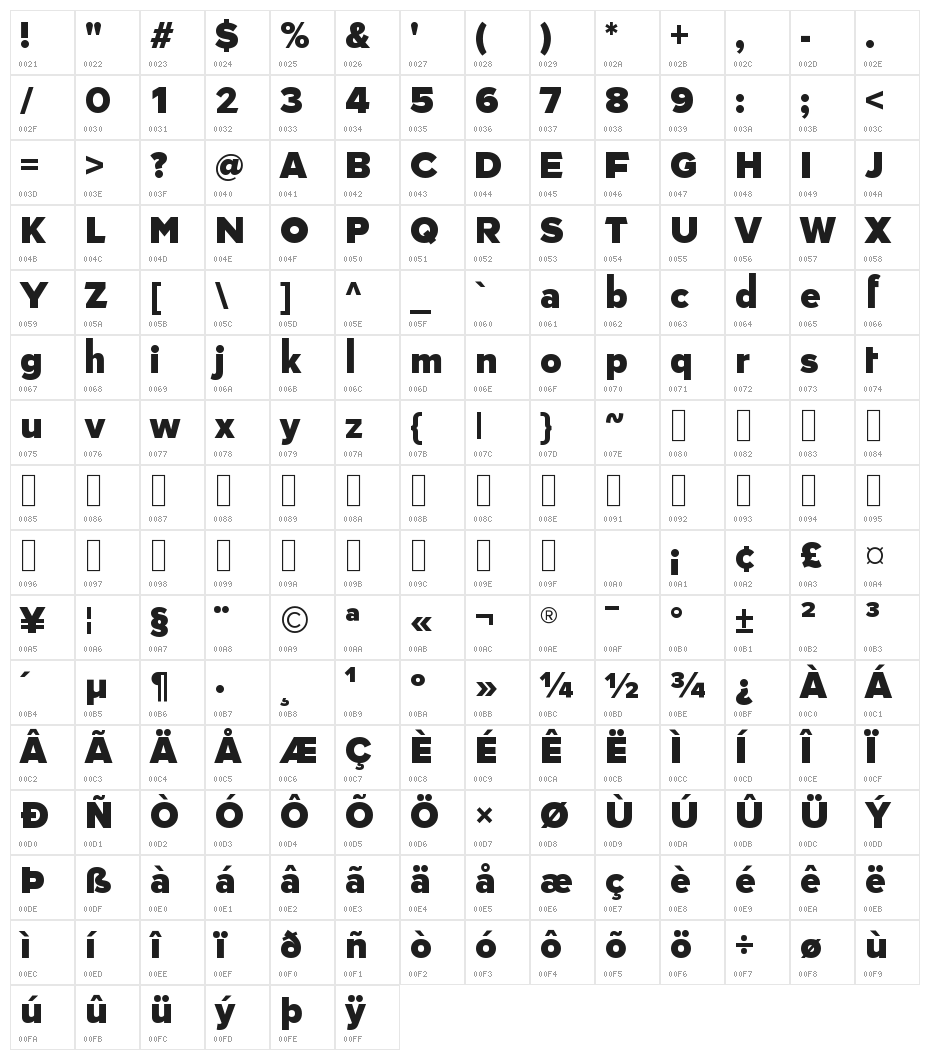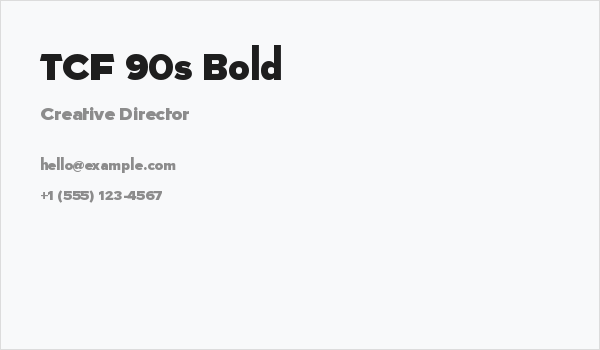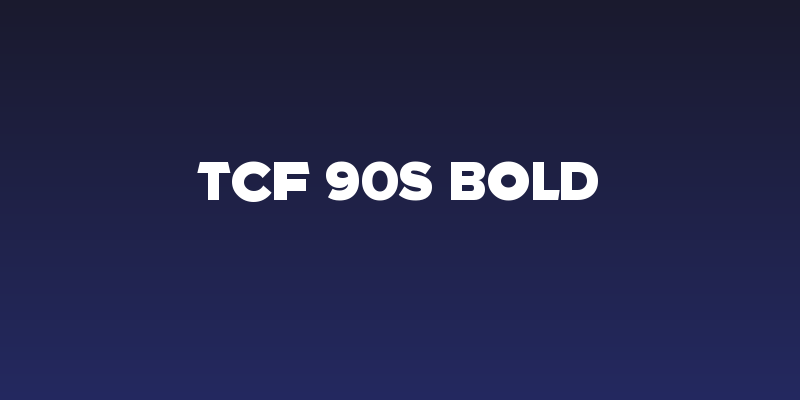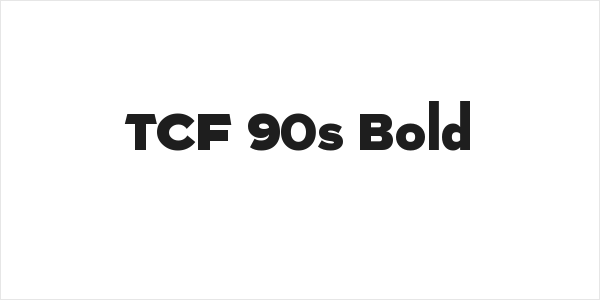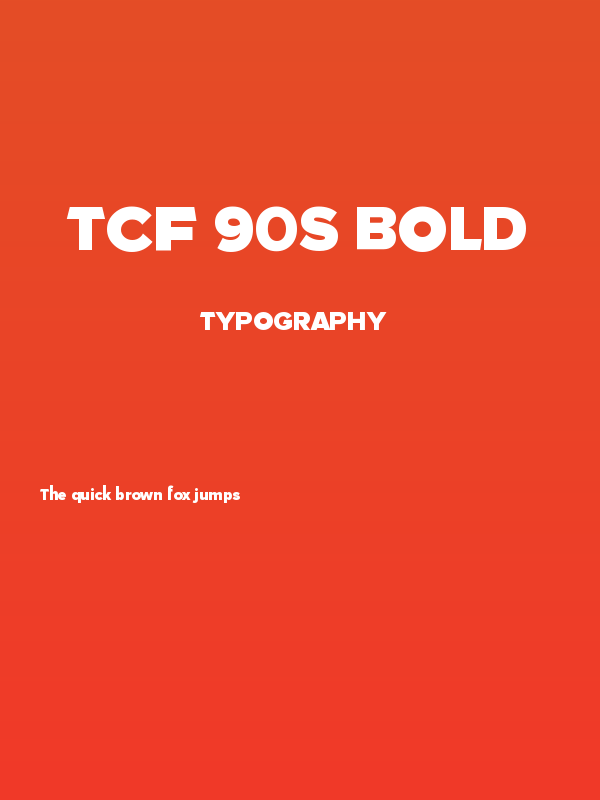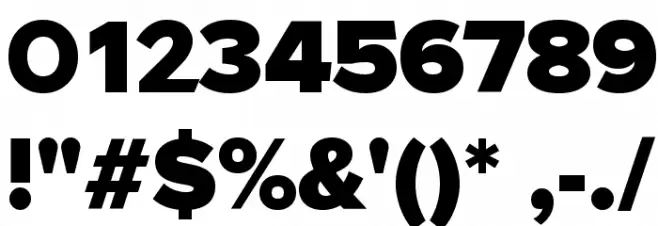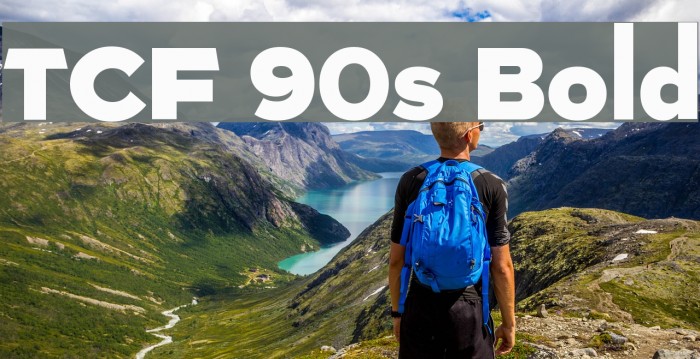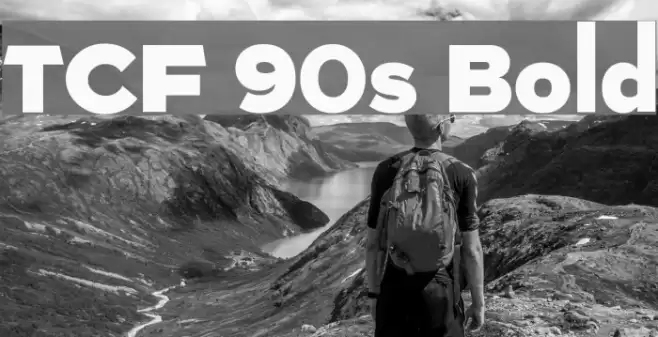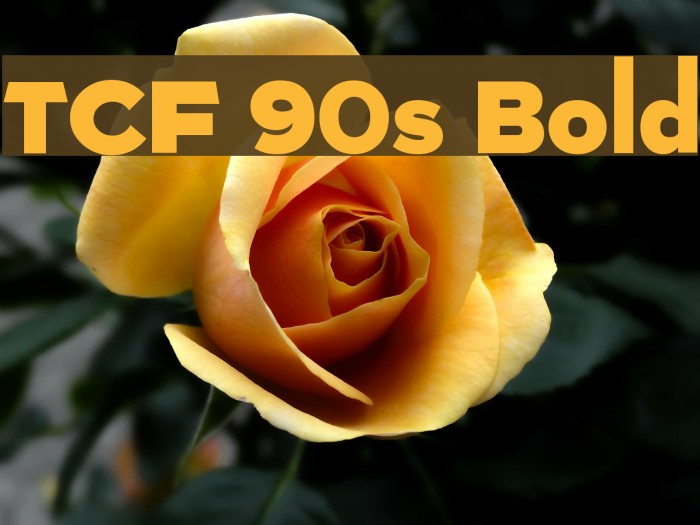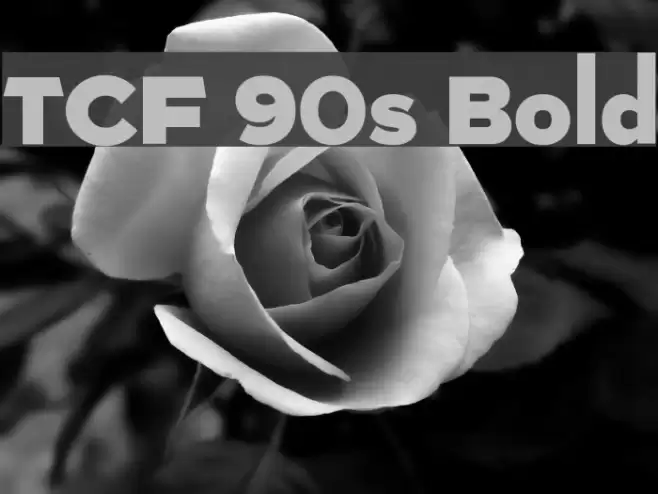
TCF 90s Bold Font
TCF 90s Bold Description
This bold, sans-serif typeface exudes a strong and confident presence, characterized by its thick strokes and uniform weight. The letters are designed with a modern aesthetic, featuring clean lines and a geometric structure that enhances readability. The uppercase and lowercase letters maintain a consistent style, while the numerals and special characters integrate seamlessly, offering versatility for various design needs. The font's boldness makes it ideal for capturing attention, making it suitable for headlines, posters, and branding materials.
| Proposed Projects | Ideal for branding, advertising, posters, and headlines where a strong visual impact is needed. |